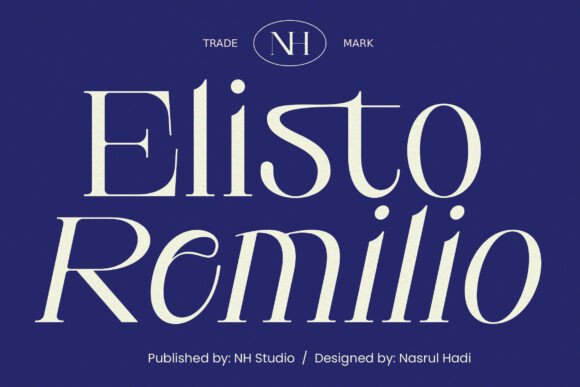
Introducing Elistro Remilio: A Typeface for Timeless Elegance
In the world of typography, few typefaces manage to strike a balance between classic sophistication and modern versatility. Elistro Remilio, however, is a notable exception. This exquisite typeface is designed to captivate audiences with its high-contrast strokes and graceful curves, bringing an air of luxury to any project. Whether you’re a designer, craftsperson, or simply a typography enthusiast, Elistro Remilio is sure to leave a lasting impression.
The Essence of Elistro Remilio
Elistro Remilio’s design is characterized by elegant, sharp serifs and a beautiful contrast between thick and thin strokes. This visual rhythm is both classical and cutting-edge, making it an ideal choice for luxury magazine mastheads, high-end jewelry branding, and sophisticated editorial layouts. The typeface’s refined silhouette exudes quiet luxury, a quality that is paramount for success in today’s competitive design landscape.
Key Features of Elistro Remilio
- Elegant Serif Design: Elistro Remilio’s serifs are sharp and refined, adding a touch of sophistication to any text.
- High-Contrast Strokes: The typeface’s high-contrast strokes create a beautiful visual rhythm, making it perfect for luxury branding and editorial design.
- Unique Character Flourishes: Elistro Remilio includes unique character flourishes that allow it to function as a standalone logo or a powerful headline.
- Versatility: This typeface is suitable for a wide range of design applications, from luxury magazine mastheads to high-end jewelry branding.
Design Applications for Elistro Remilio
Elistro Remilio is an incredibly versatile typeface, suitable for a variety of design applications. Here are a few examples:
- Luxury Magazine Mastheads: Elistro Remilio’s elegant design makes it perfect for luxury magazine mastheads, adding a touch of sophistication to any publication.
- High-End Jewelry Branding: The typeface’s refined silhouette and luxurious feel make it an ideal choice for high-end jewelry branding.
- Sophisticated Editorial Layouts: Elistro Remilio’s classic yet modern design makes it suitable for sophisticated editorial layouts, adding a touch of elegance to any article or feature.
Tips for Using Elistro Remilio
To get the most out of Elistro Remilio, here are a few design tips:
- Pair with Minimalist Photography: Elistro Remilio’s refined silhouette is best paired with minimalist photography and a neutral color palette, allowing the typeface to command the spotlight.
- Use as a Standalone Logo or Headline: Elistro Remilio’s unique character flourishes make it perfect for use as a standalone logo or a powerful headline.
- Experiment with Typography: Don’t be afraid to experiment with typography, using Elistro Remilio in combination with other typefaces to create a unique and captivating design.
| Font Name | Elistro Remilio Font |
| Author | NH Studio |
Elistro Remilio is a truly exceptional typeface, offering a perfect blend of classic sophistication and modern versatility. With its elegant design, high-contrast strokes, and unique character flourishes, this typeface is sure to make a lasting impression. Whether you’re a designer, craftsperson, or simply a typography enthusiast, Elistro Remilio is a must-have addition to your typography collection.
Why Choose Elistro Remilio?
Here are just a few reasons why Elistro Remilio stands out from the crowd:
- Timeless Elegance: Elistro Remilio’s classic design ensures that it will remain timeless and elegant for years to come.
- Versatility: This typeface is suitable for a wide range of design applications, from luxury branding to editorial design.
- High-Quality Design: Elistro Remilio is designed to the highest standards, ensuring a crisp and clear appearance in any design application.
In conclusion, Elistro Remilio is a typeface that embodies timeless elegance and sophistication. Its versatility, combined with its high-quality design, makes it an excellent choice for designers and craftspersons looking to add a touch of luxury to their projects.